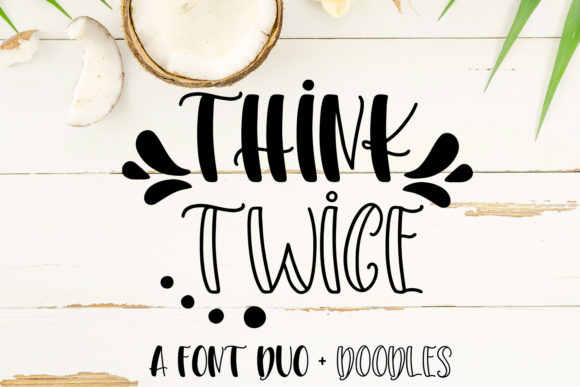
**Think Twice: The Doodling Delight for Playful Creations**
In a world of monotonous fonts, Think Twice emerges as an exuberant display font duo, ready to breathe life into your creative projects. Join the artistic revolution and let your imagination run wild with Think Twice's playful and captivating strokes.
**Dive into a World of Creative Possibilities:**
- **Posters that Pop:** Create posters that leap off the wall with Think Twice's energetic and charming vibes. Its hand-drawn doodles add a touch of whimsy that transforms your designs into captivating works of art.
- **Cards that Connect:** Send heartfelt messages with Think Twice's warm and inviting style. Its playful spirit adds a personal touch to greeting cards, invitations, and thank-you notes, leaving a lasting impression on your loved ones.
- **Mugs that Make You Smile:** Bring laughter to your morning coffee with Think Twice's cheerful designs. Personalize mugs with witty quotes or doodle-adorned patterns that make every sip a moment of pure joy.
**Embrace the Unique Charm of Think Twice:**
- **Bold and Beautiful:** Think Twice's bold and eye-catching strokes command attention, ensuring your designs stand out from the crowd. Its distinctive style adds a layer of sophistication that elevates your creations.
- **Uniquely Handcrafted:** Each doodle in the Think Twice font is lovingly crafted by hand, infusing your designs with an authentic and personal touch. Its organic and imperfect lines create a sense of warmth and approachability.
- **Endless Customization Options:** Experiment with Think Twice's diverse range of characters, ligatures, and swashes to create unique typographic compositions. Its versatility allows you to tailor your designs to any project, from playful posters to charming invitations.
**Unlock Your Creative Potential with Think Twice:**
Think Twice is more than just a font; it's an invitation to unleash your creativity and explore a world of boundless possibilities. Its playful spirit and doodled delights will transform your designs into expressions of joy, laughter, and pure artistic bliss.
Embrace the power of Think Twice and watch your creative visions come to life. Let its playful doodles dance across your posters, cards, and mugs, captivating your audience and leaving an unforgettable impression.